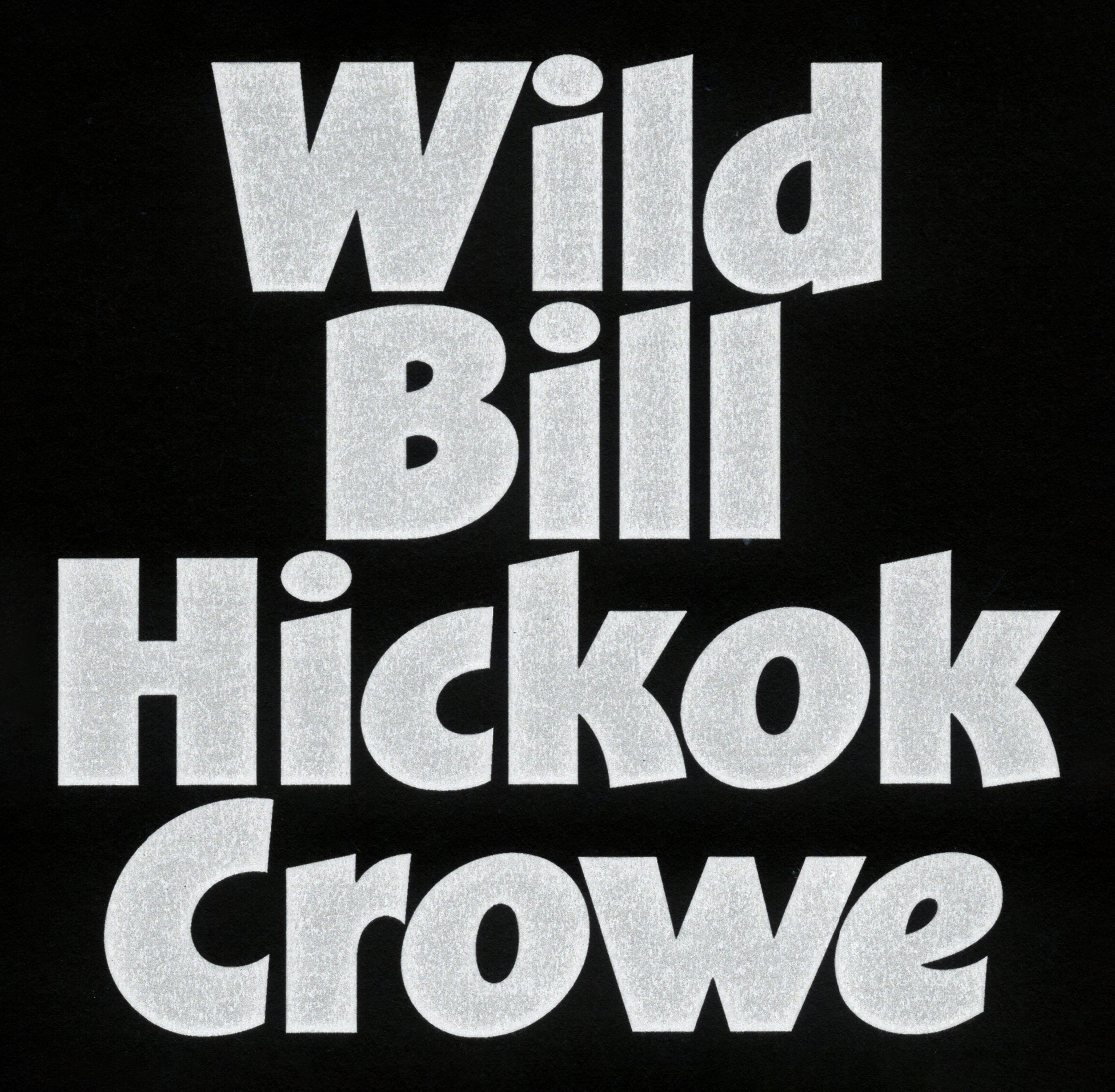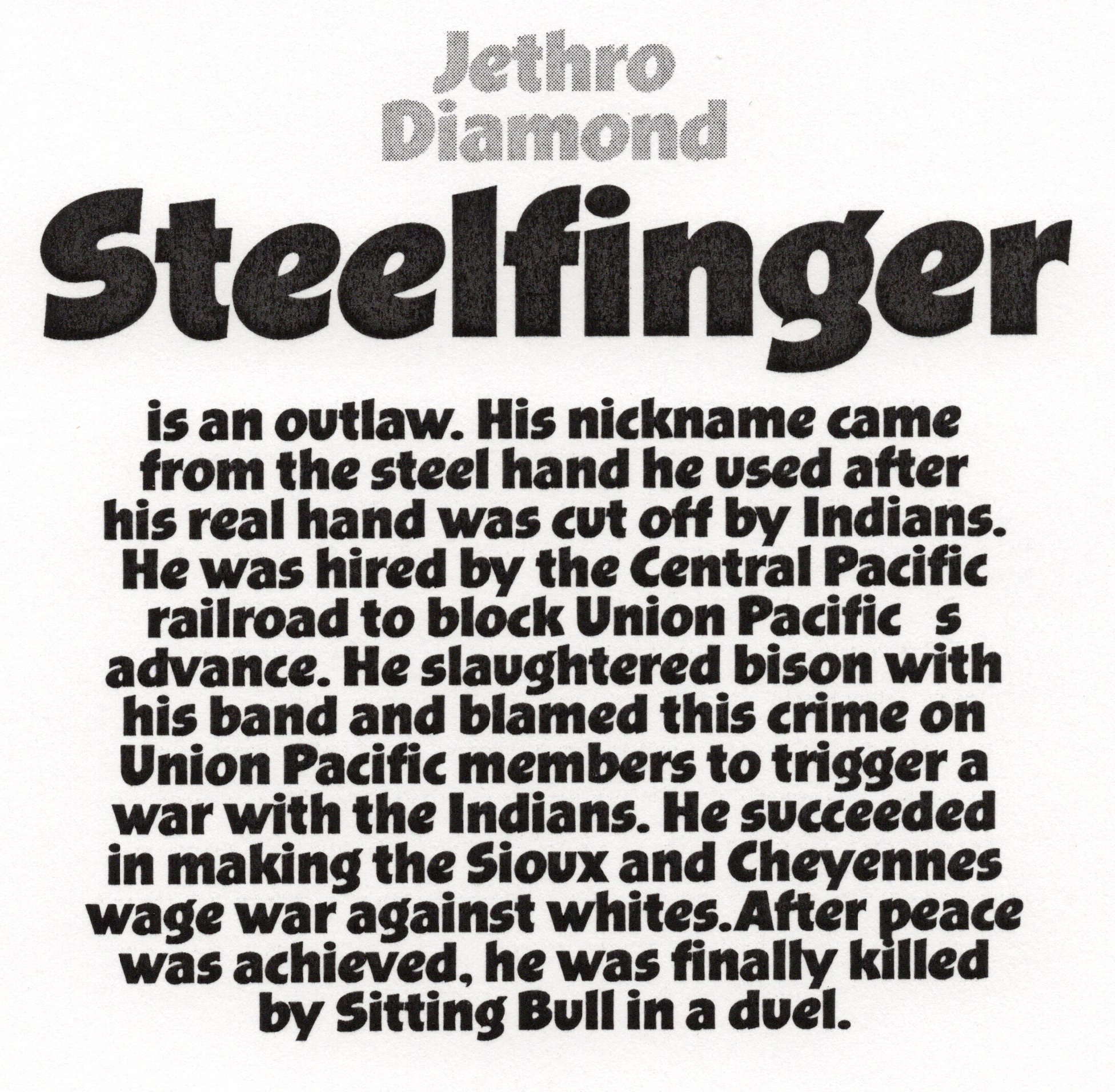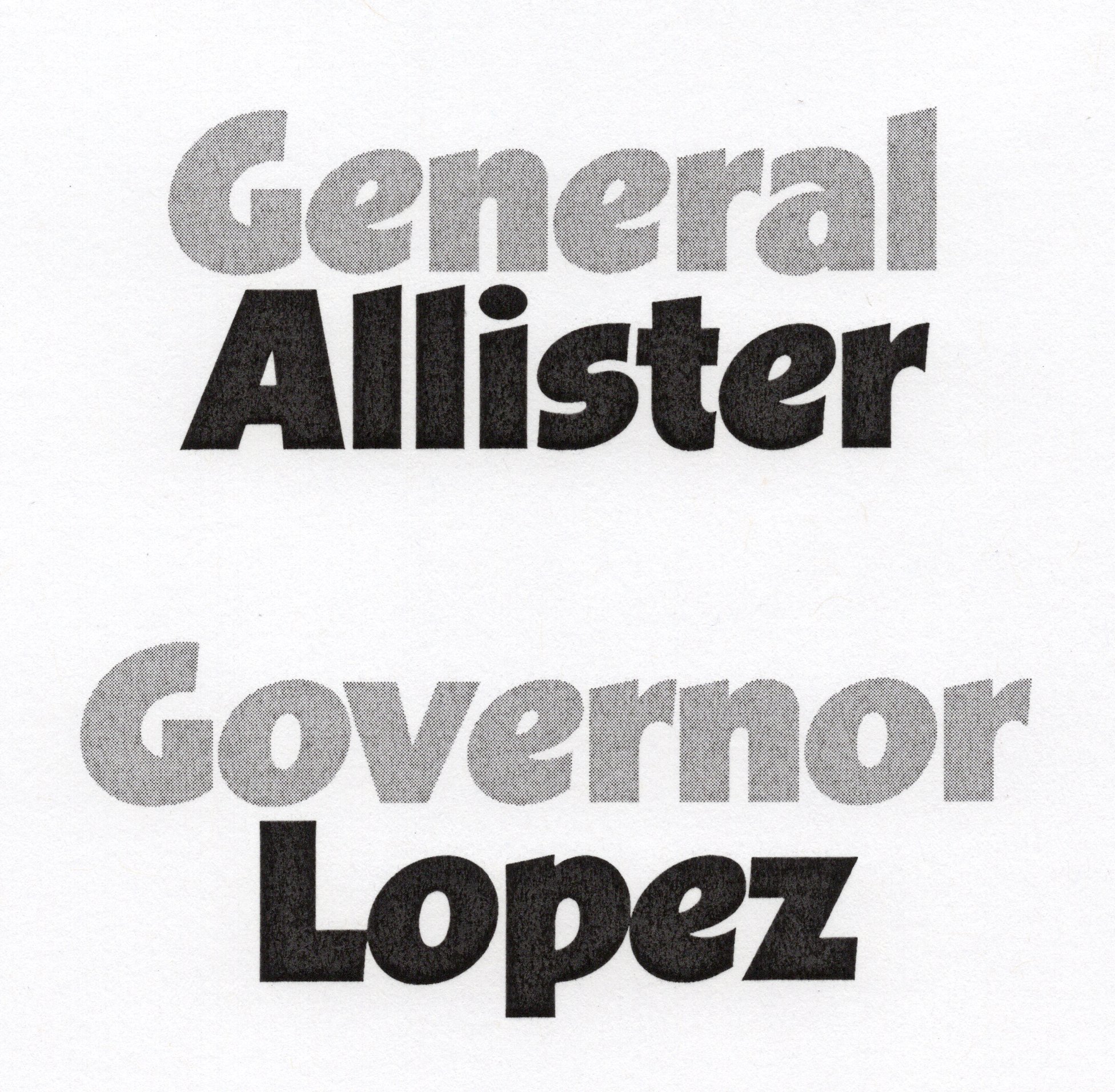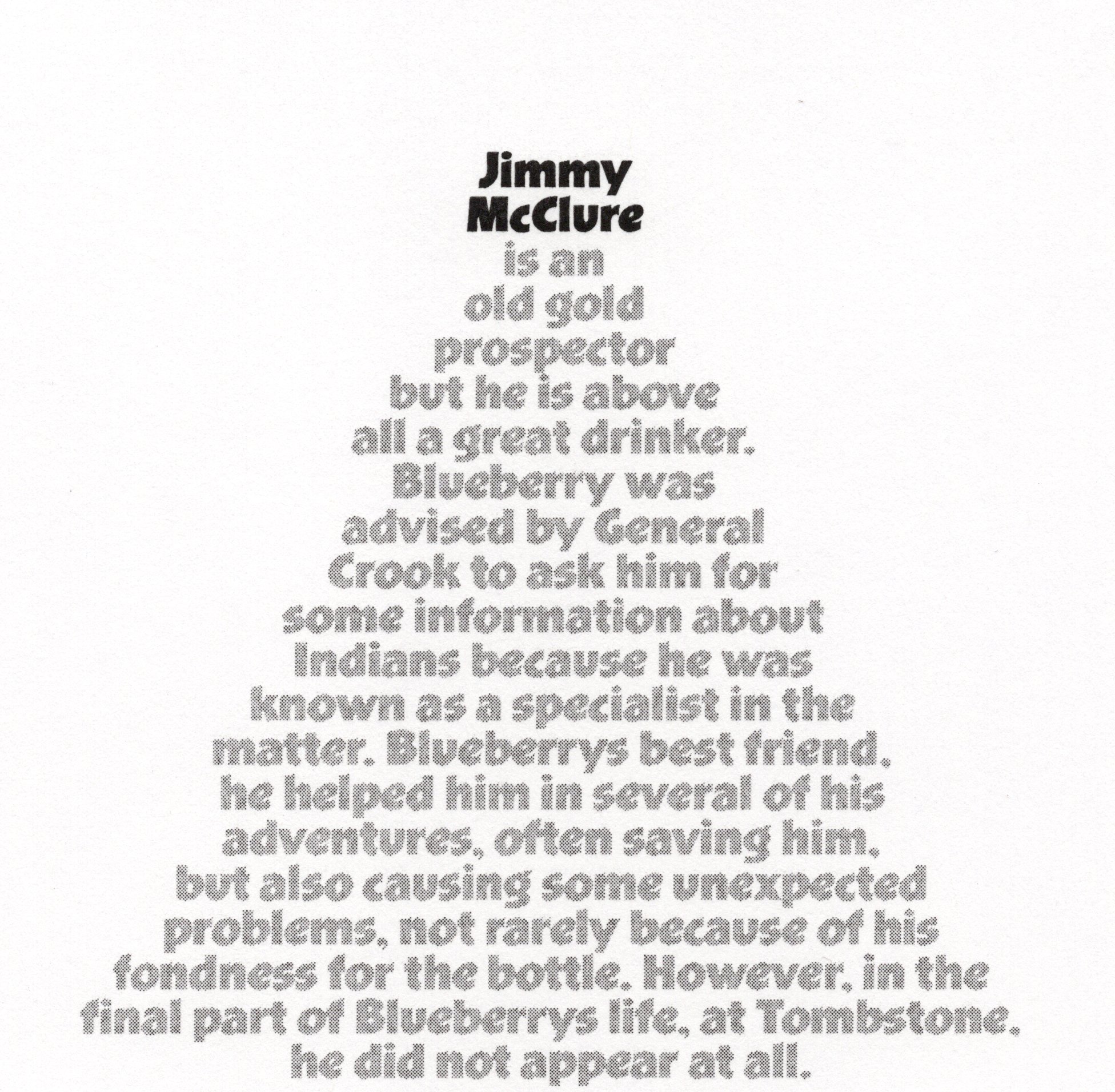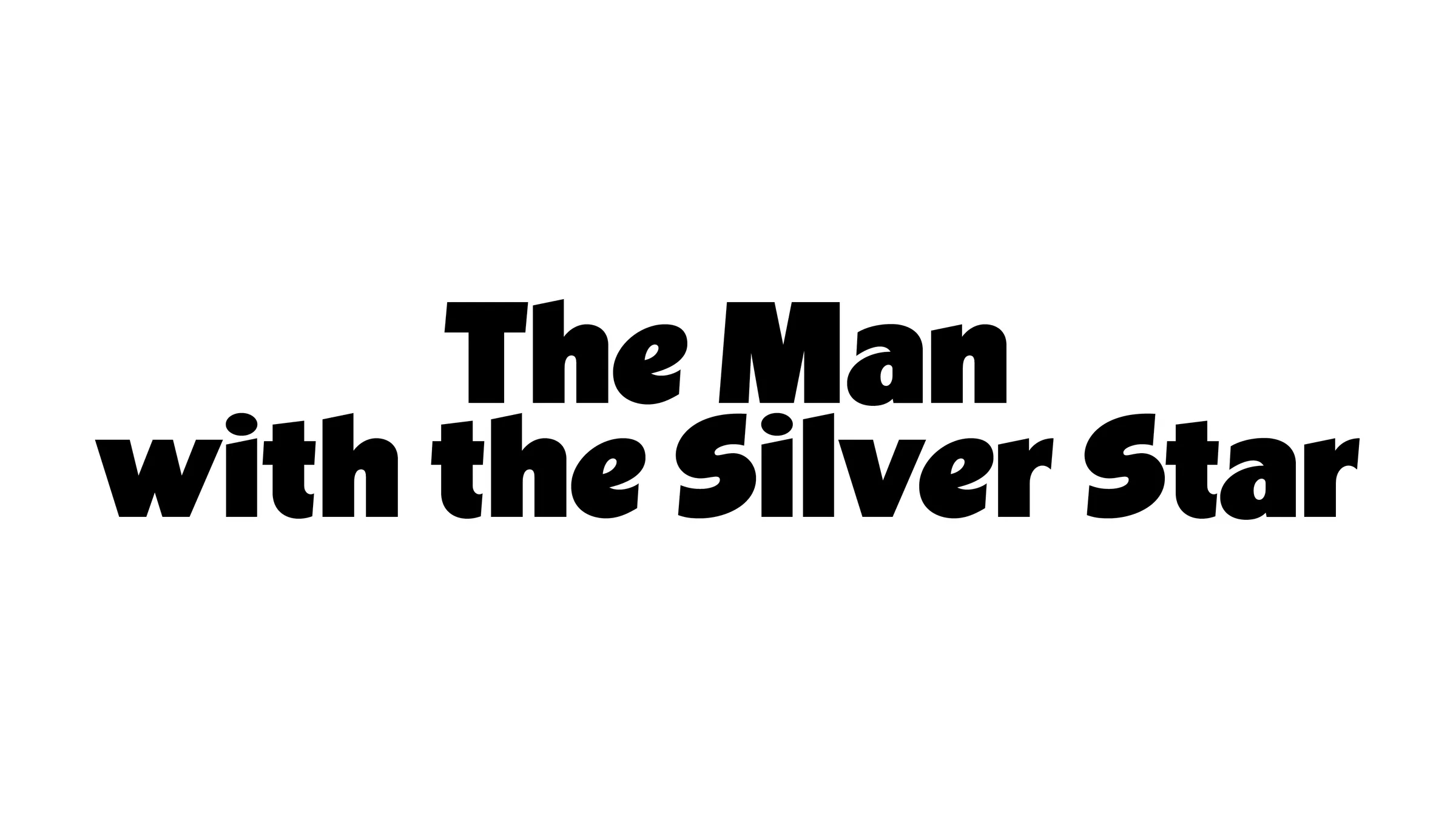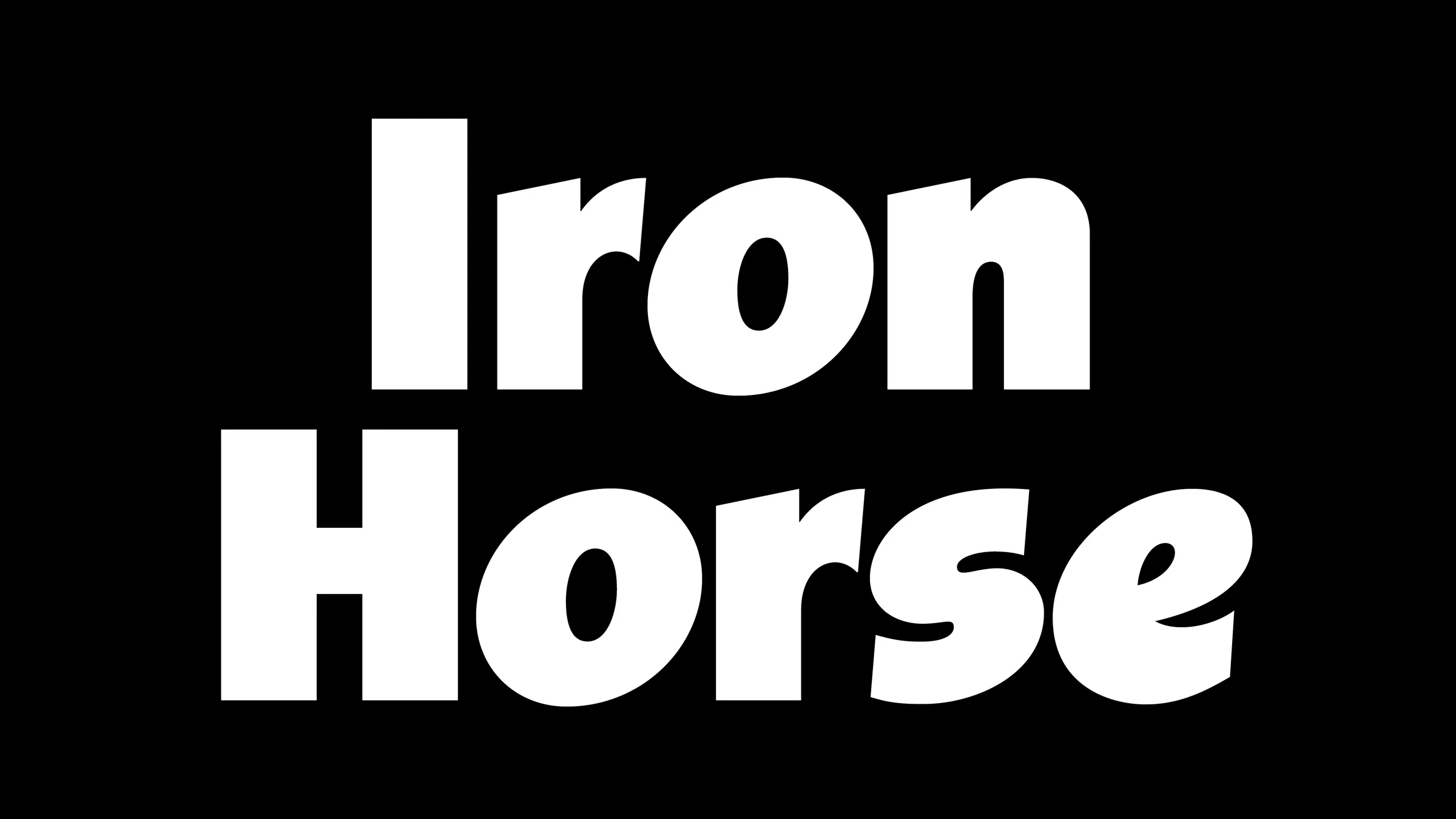
Blueberry is a "comic book" typeface that seeks to imitate a form of handwriting, evolving towards a mechanical system widely seen and used in comics. Blueberry bears the name of one of the finest sagas in French/Belgian comics (and elsewhere, perhaps?) a great classic of western comics, Blueberry, by Giraud and Charlier. The name of this saga is also the name of the hero, a former officer who deserted the American army after the American Civil War. This typeface is therefore a tribute to this family of fonts used in comics and to these brilliant authors.